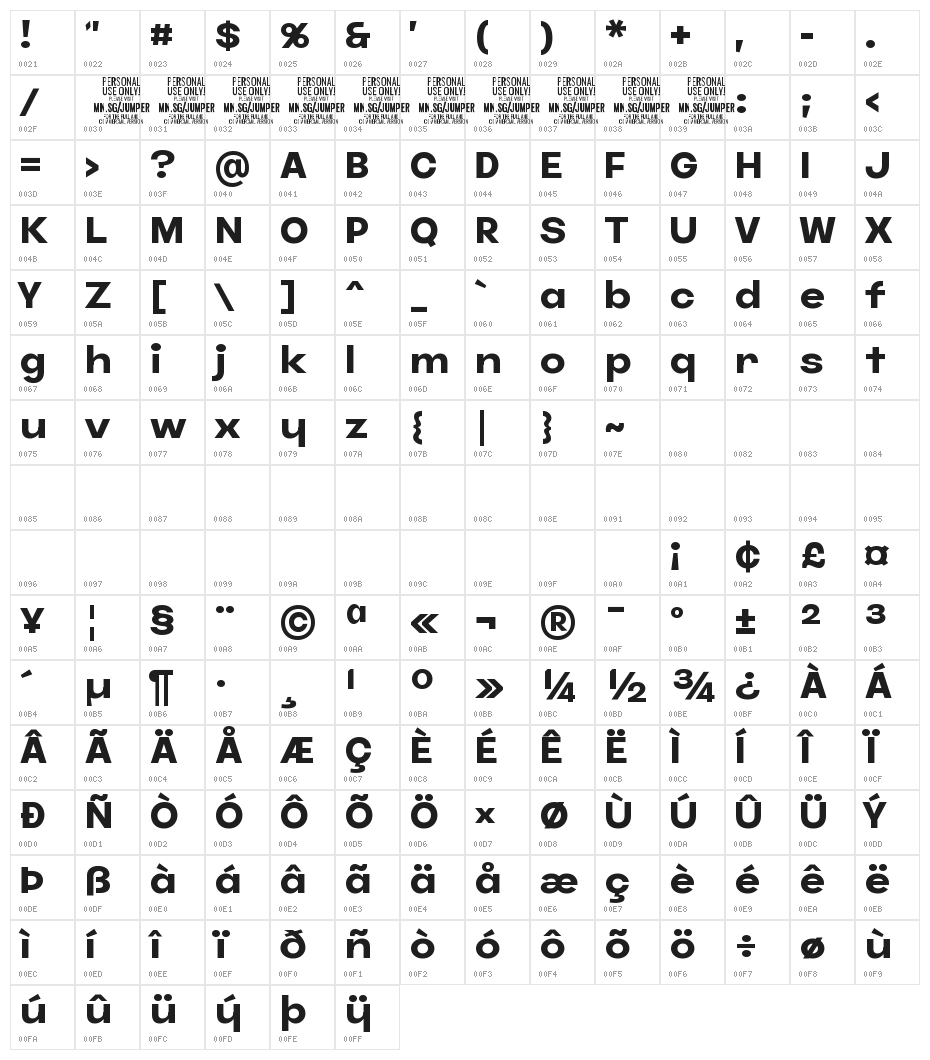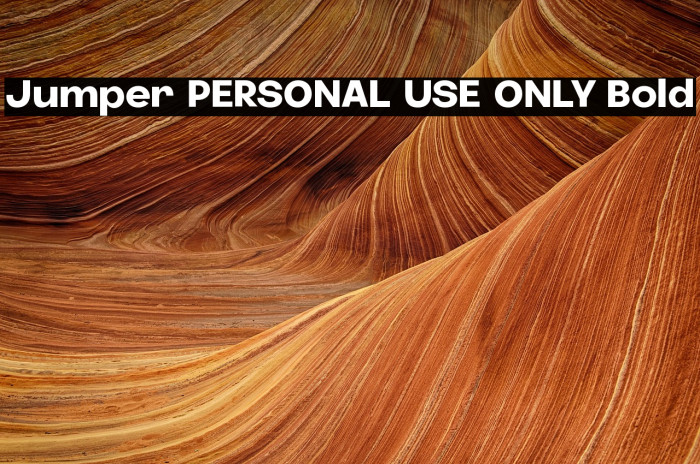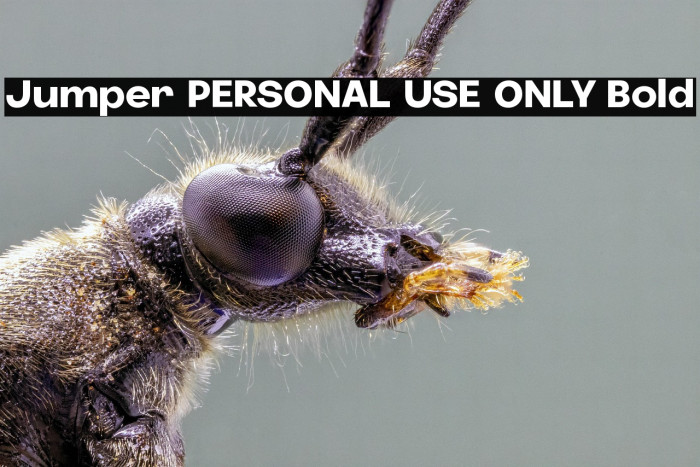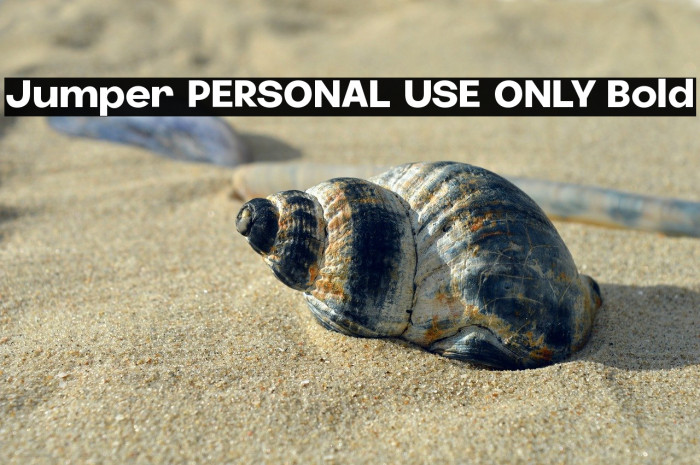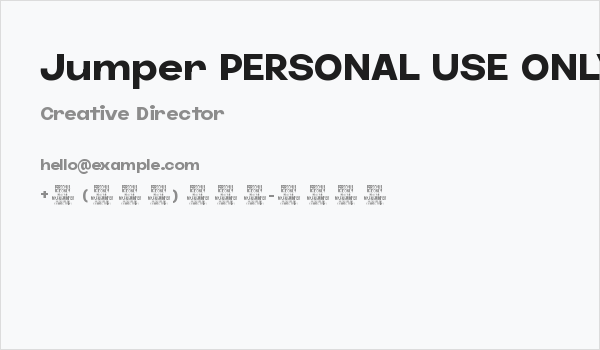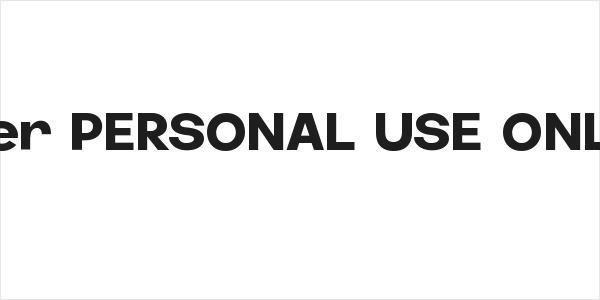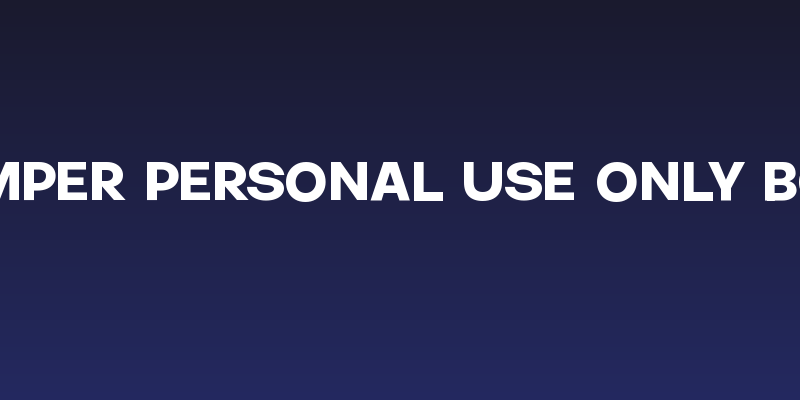
Jumper PERSONAL USE ONLY Bold Font
Jumper PERSONAL USE ONLY Bold Description
This font features a bold and assertive style, characterized by thick strokes and a strong presence. The uppercase letters are uniform in height, creating a cohesive and balanced look. The lowercase letters maintain a consistent weight, ensuring readability and clarity. The numerals are robust, matching the overall boldness of the alphabet. Special characters are designed with the same thickness, providing a harmonious appearance across all glyphs. This font is ideal for making a statement, with its powerful and impactful design.